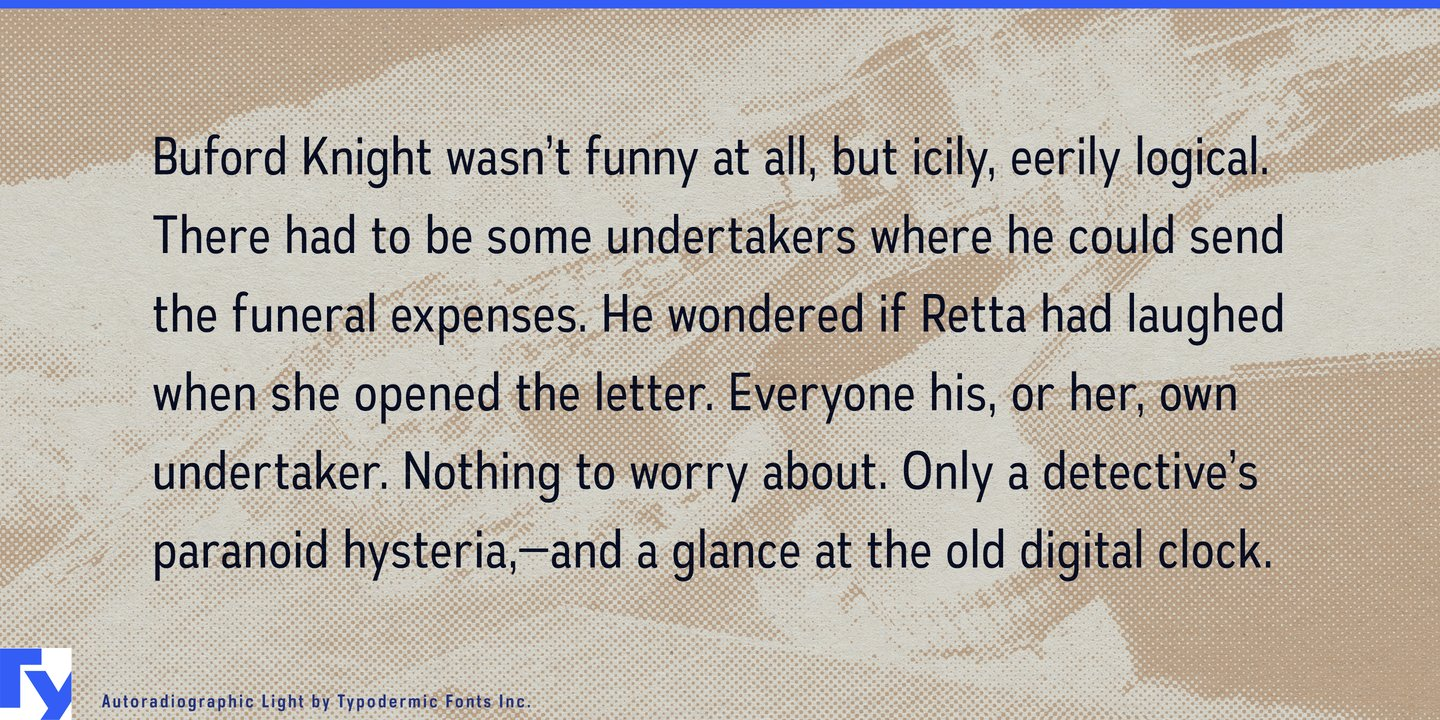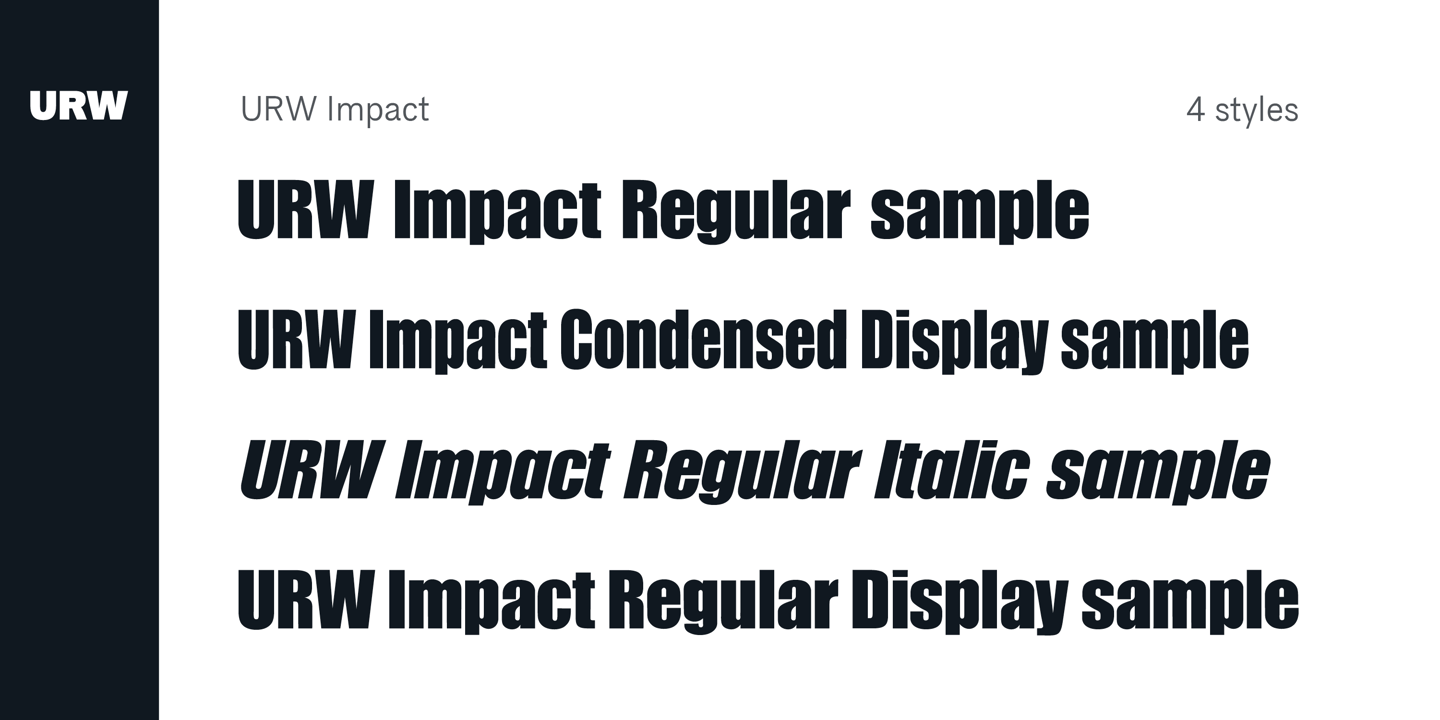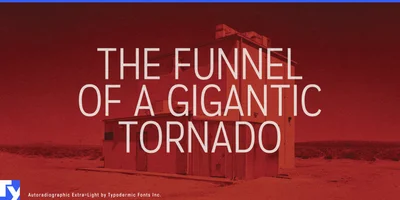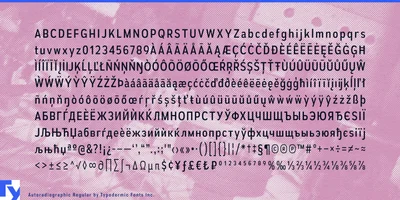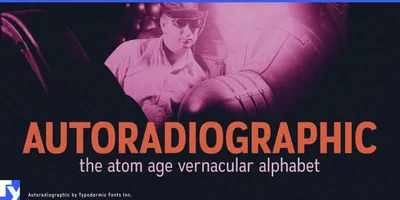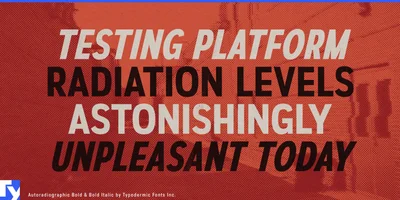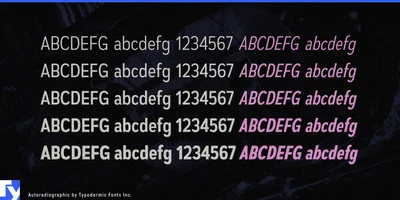
Autoradiographic vs Impact
Autoradiographic and Impact are both display typefaces sharing a condensed foundation. Where Autoradiographic leans expressive, retro, Impact brings signage, readable. Compare which suits your Headlines project.
| Feature | Autoradiographic | Impact |
| Classification | display | display |
| Language Support | latin, latin-extended, cyrillic | latin, latin-extended, cyrillic, greek |
| Source | Typodermic | Stephenson Blake |
Recommended: Autoradiographic
- expressive, retro design character
- Suited for Posters and Branding
- From typodermic
Consider: Impact
- signage, readable design character
- Suited for Advertising and Memes
- From stephenson-blake